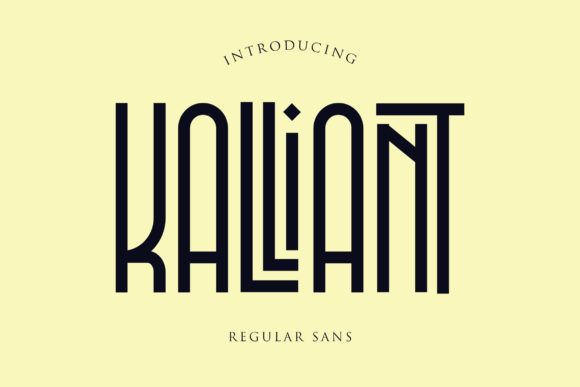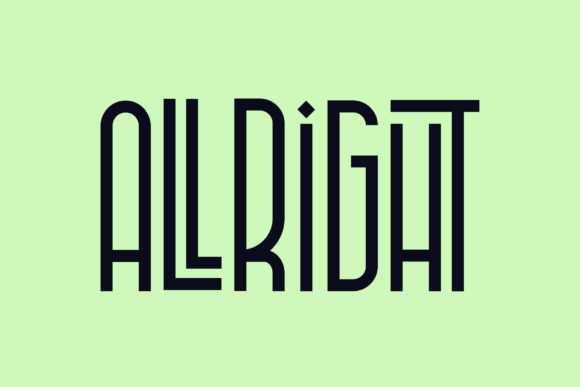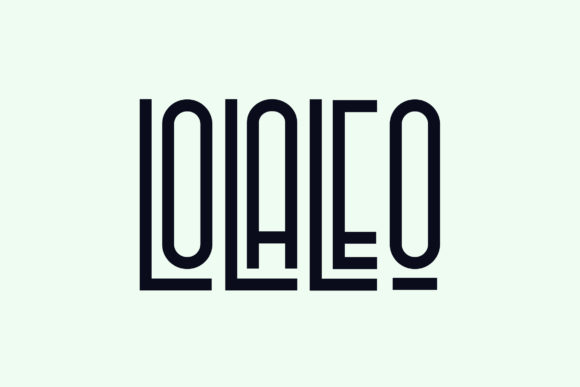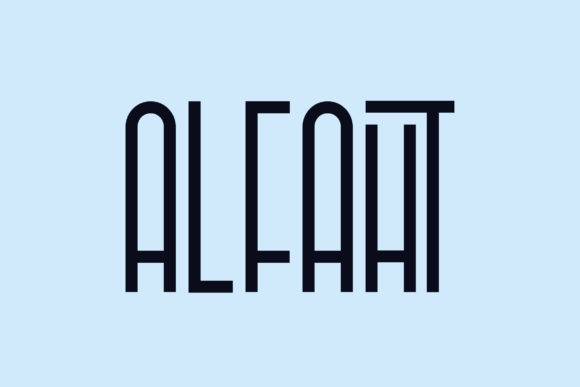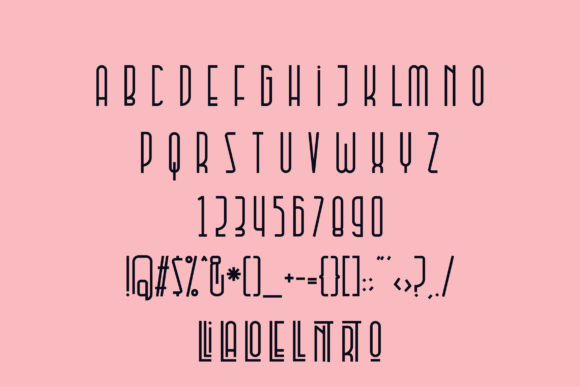
HomeSans Serif FontsKalliant Font Sans Serif Fonts Kalliant Font FacebookTwitterPinterestWhatsApp Kalliant Font 1 of 5 About Kalliant Font Kalliant is a gorgeous and thin sans serif font with a unique twist. Get inspired by its versatile look! DOWNLOAD NOW People also explored Autumn Font Kingsman Font Rainbow Font Authority Font Randy Sofia – Lovely Script Font Sillagatture Font Akalea Love Font Creative Brave – Handwritten Script Font Labelmachine2 Font 142 0 TagsKalliant Font Previous articleAnicon FontNext articleRolando Font LEAVE A REPLY Cancel reply Comment: Please enter your comment! Name:* Please enter your name here Email:* You have entered an incorrect email address! Please enter your email address here Website: Save my name, email, and website in this browser for the next time I comment. Personal Use Free Aliqa Personal Use Free Read more about this font Green Fuz Personal Use Free Read more about this font Alligator Font Personal Use Free Read more about this font Brittish State Personal Use Free Read more about this font BLOG Transform Your Website: Elevate Your Typography with 7 Best Web Font Generators Are you ready to transform your website's typography from ordinary to extraordinary? Great! Today, we're diving into the world of web font generators, which... To increase your work productivity, choose the most readable fonts. Free Fonts Risk: Why Free Fonts Can Be Dangerous for Designers Exploring Font Trends